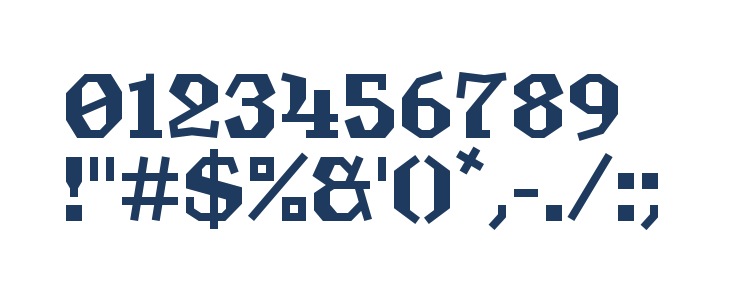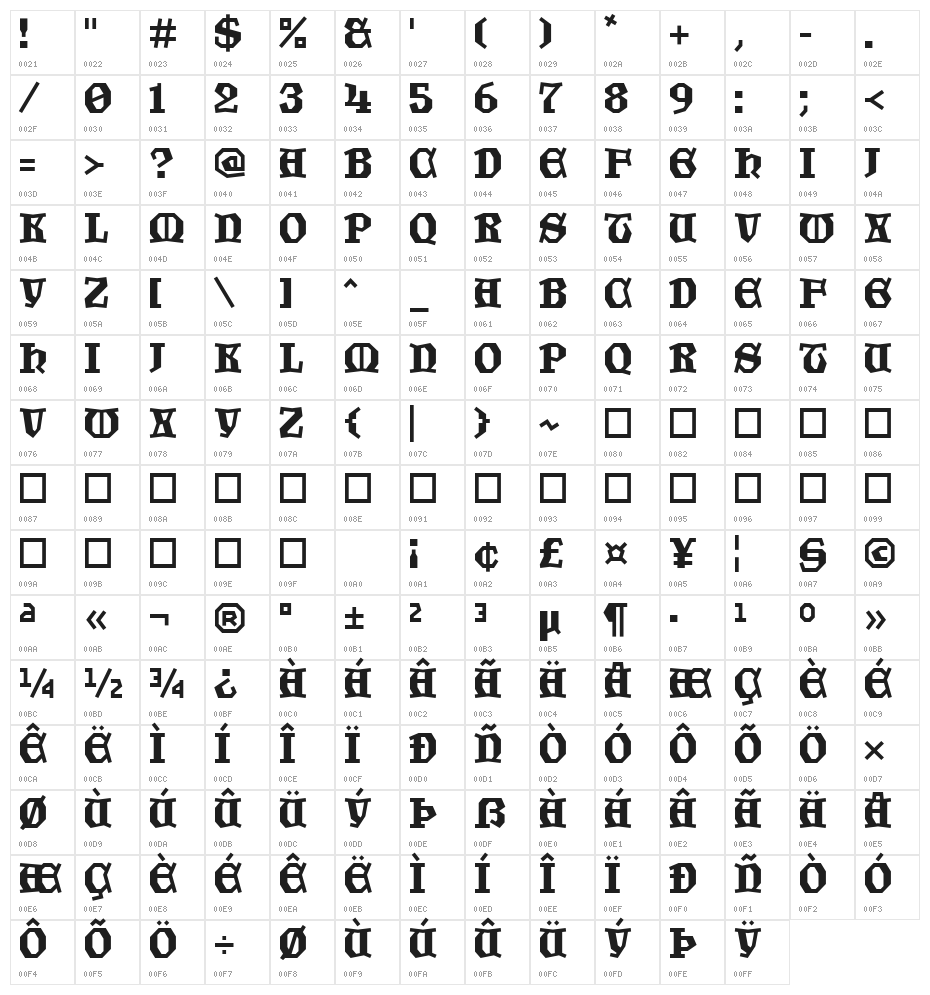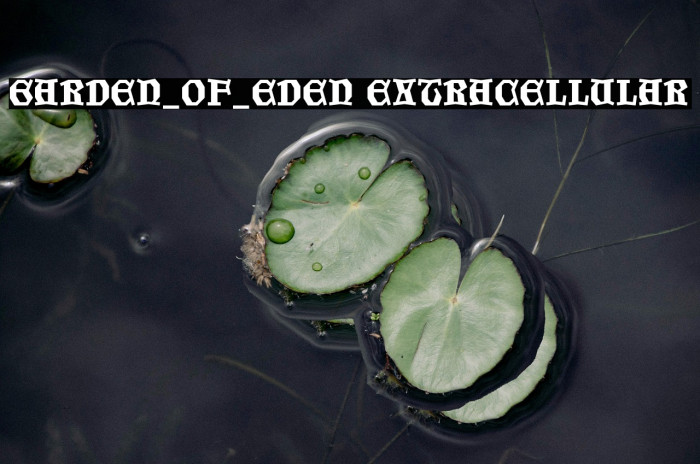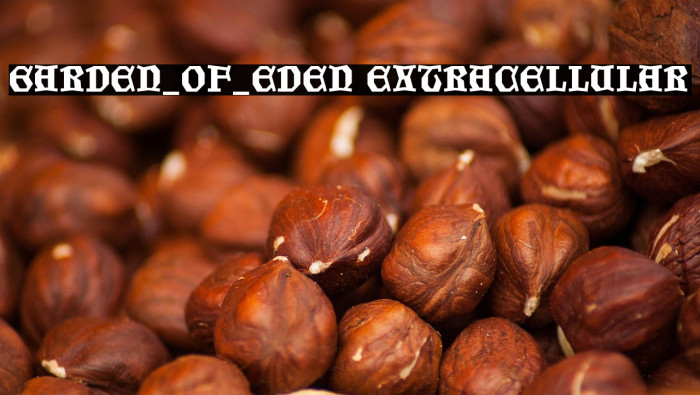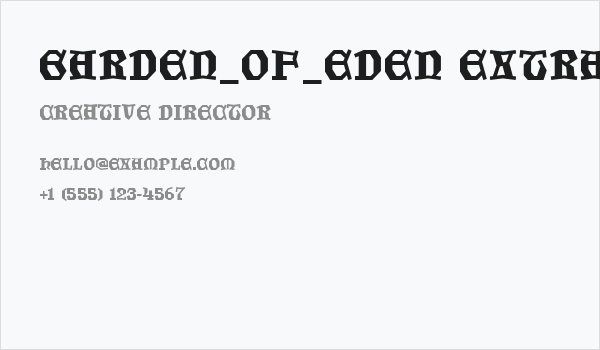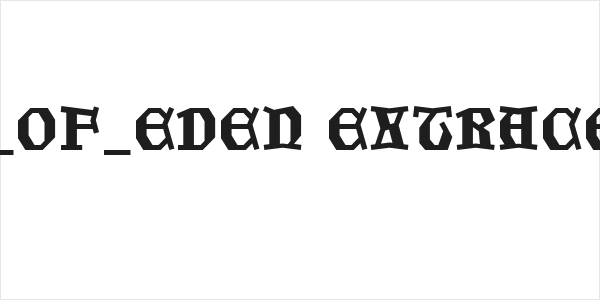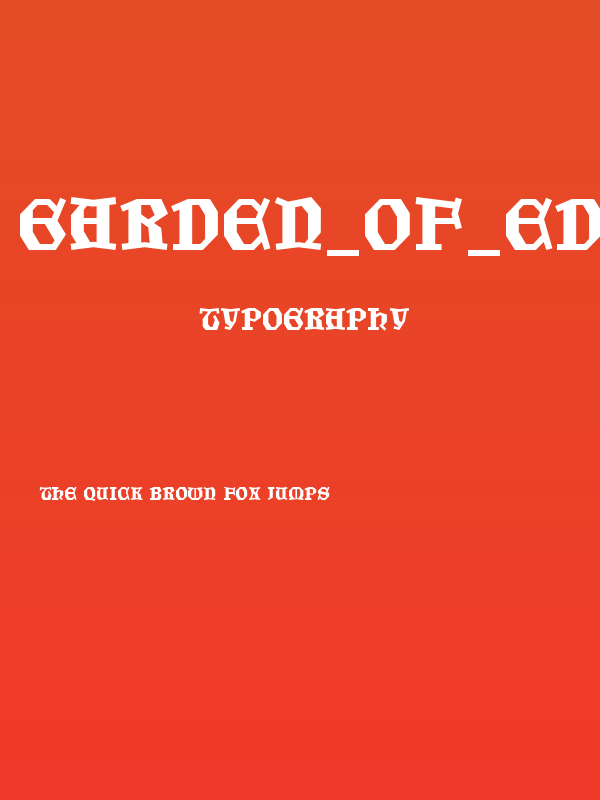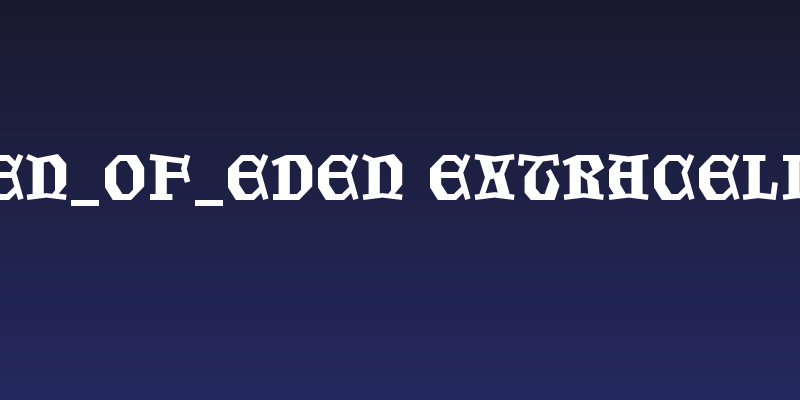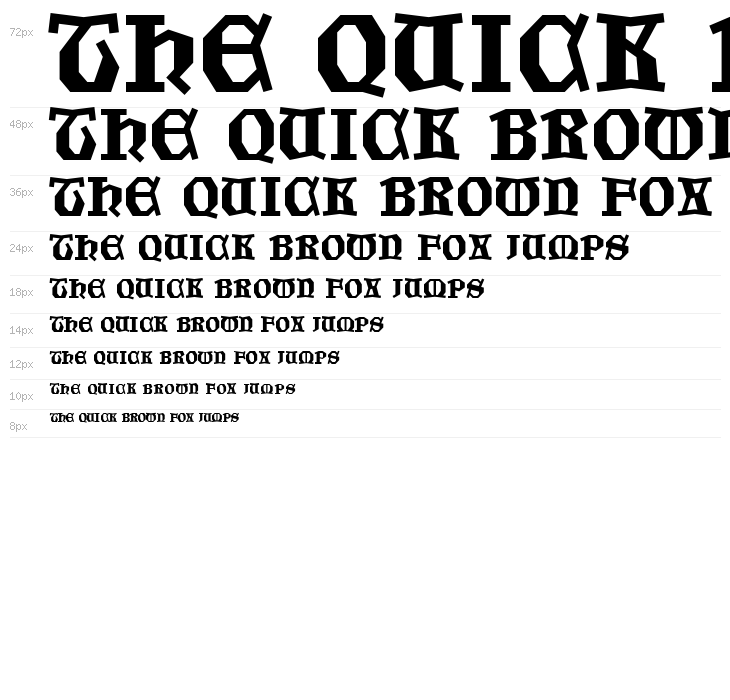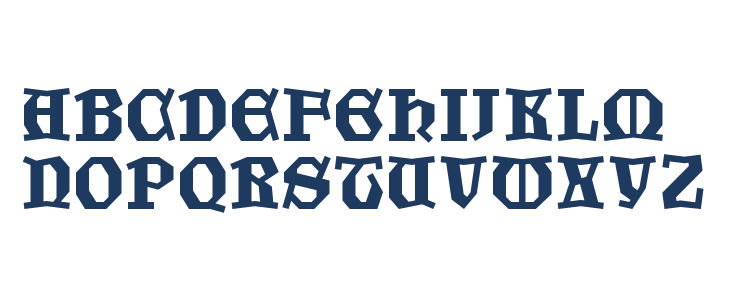
Garden_of_Eden Extracellular Font
Garden_of_Eden Extracellular Description
This font features a bold, angular design with a distinct Gothic influence, characterized by sharp edges and a strong presence. The uppercase letters are particularly striking, with a medieval flair that gives them a commanding appearance. The lowercase letters maintain this aesthetic, ensuring consistency throughout the typeface. Numbers and special characters are equally bold, making them stand out in any design. The overall style is decorative, making it suitable for projects that require a dramatic and eye-catching look. The font's unique style makes it ideal for use in headlines, posters, and branding that seeks to convey a sense of strength and tradition.
| Proposed Projects | Ideal for use in branding, posters, headlines, and any design that requires a dramatic, eye-catching font. |